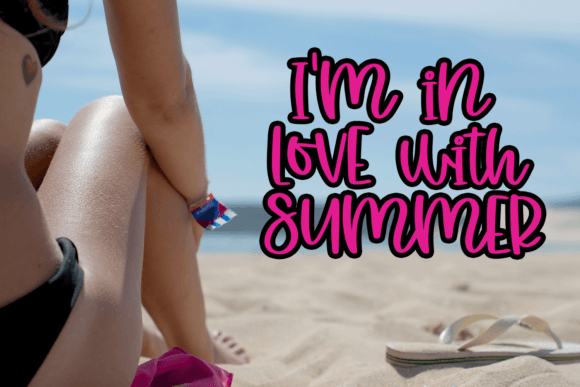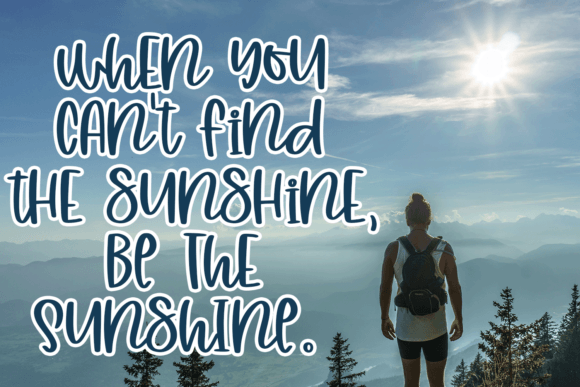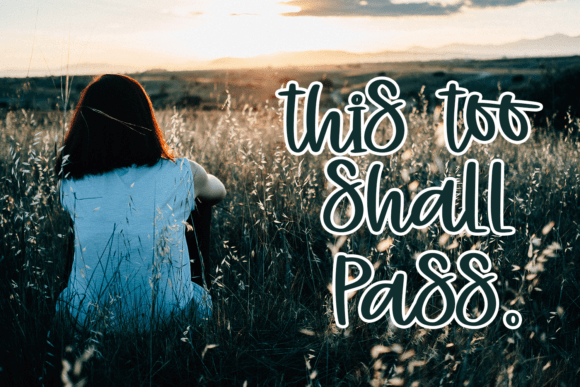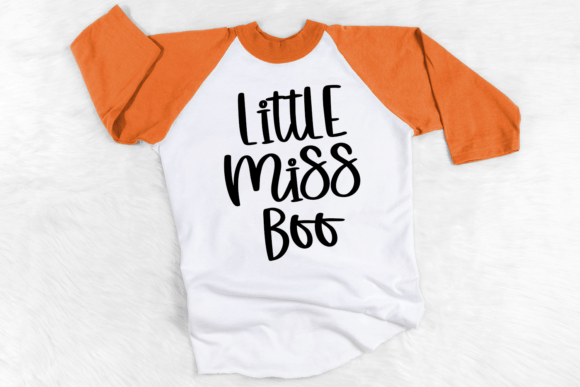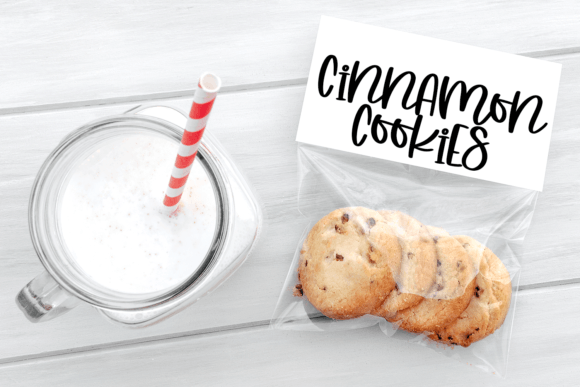
Introduction to Good Morning Gorgeous Font
Introducing Good Morning Gorgeous, a quirky handcrafted typeface.
Introducing Good Morning Gorgeous, a quirky handcrafted typeface. Good Morning Gorgeous is perfectly suited for: Artisanal projects using Cricut or Silhouette machines, or for enhancing your SVG desig
Key Features of Good Morning Gorgeous Font